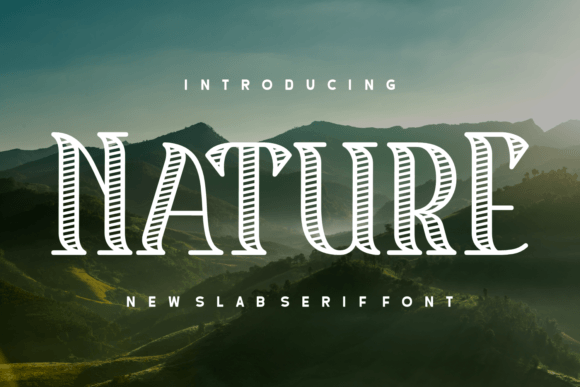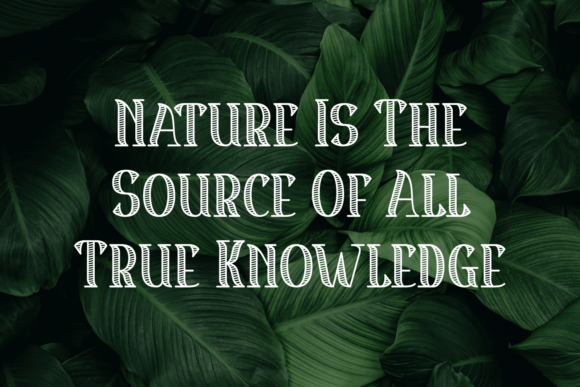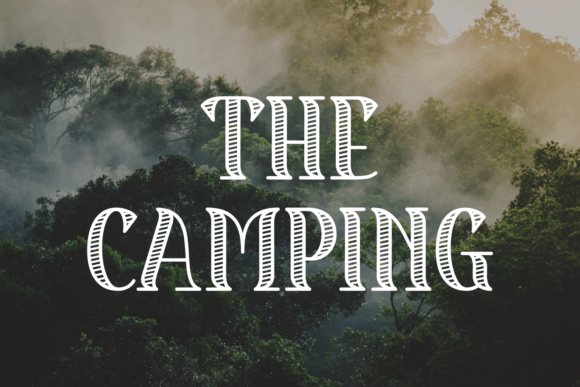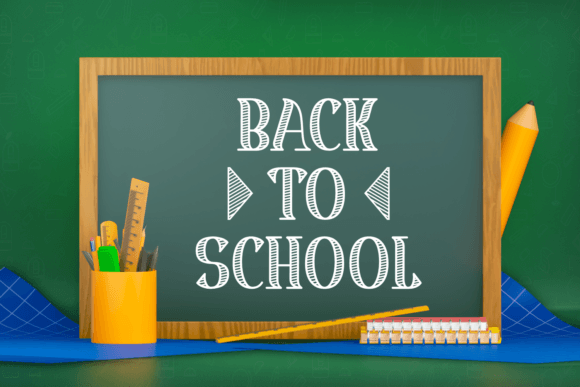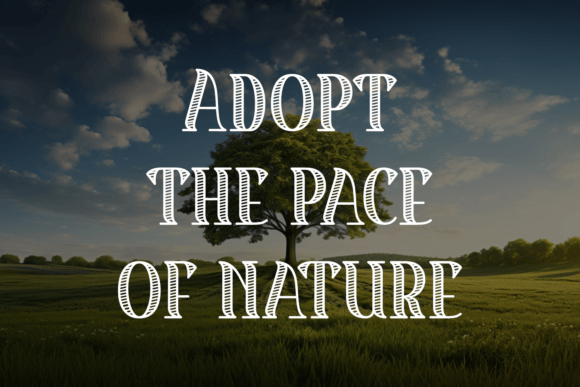
Nature Reserve Font
About Nature Reserve Font
Step into the wilderness with the strikingly original ‘Nature Reserve’ font. This vintage font captures the spirit of the great outdoors with a touch of luxury, carefully blending elegence with a solid slab serif style. Its stylish aesthetics seamlessly morphs into book typography or magazine print, making it an epitome of versatility. As an articulate quote font, it can enhance your branding with an exclusive twist.
Whether it’s lending sophistication to a fashion brand or expressing creativity through art, the ‘Nature Reserve’ font has myriad uses. It’s a premium serif font with a modern display that’s fitting for a sophisticated logo or even a quintessential t-shirt print. The allure of this beautiful font lies in its neat craftsmanship, effortlessly combining elegance with a hint of audacity.
Put a spin on the classic with the ‘Nature Reserve’ font; a font that’s as fancy as it’s timeless. Dive into a world of design delight with the unique character of a ‘Nature Reserve’ – your go-to-font for a luxury card design or a camping adventure. Get ready to captivate your audience with this versatile and glamorous font fit for any creative venture.